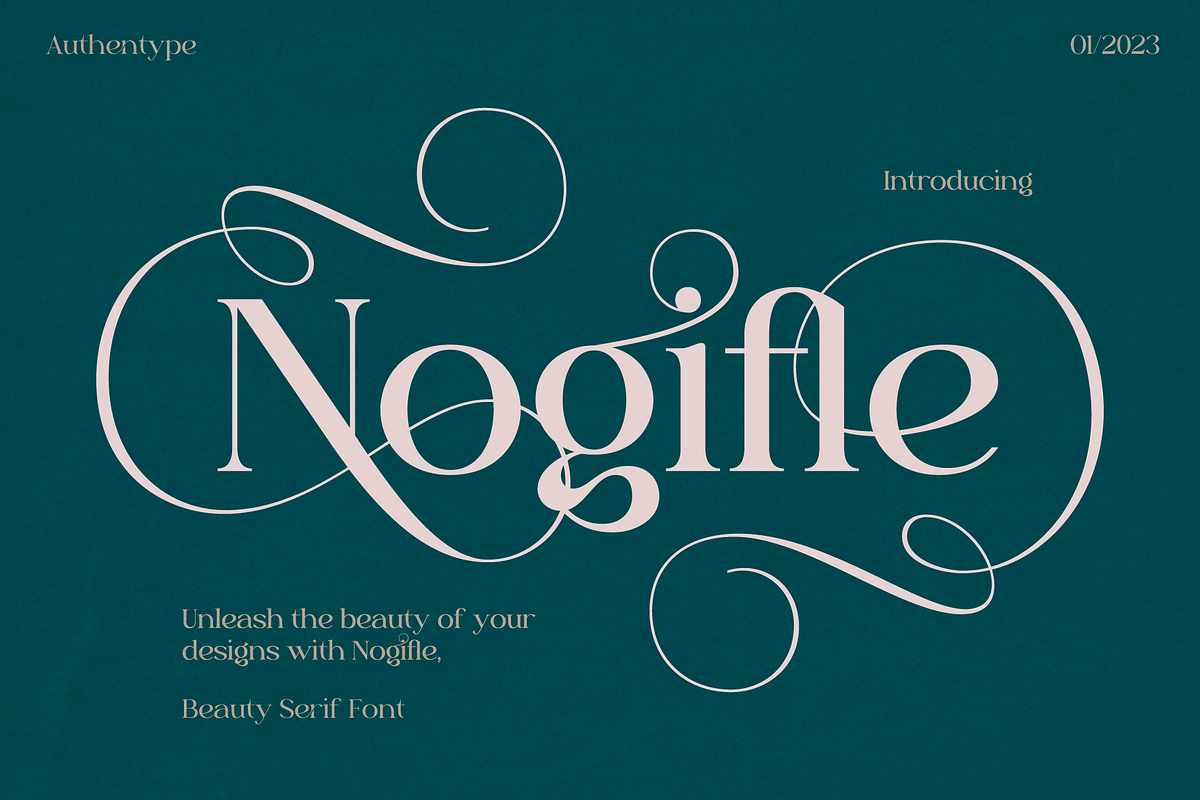
Nogifle Beauty Serif Font Free Download
Nogifle Beauty Serif Font Free Download is an elegant and refined typeface designed to add a luxurious touch to your creative work. With its delicate serifs, smooth curves, and graceful letterforms, this font is perfect for high-end branding, fashion editorials, wedding invitations, packaging, and social media content.
Nogifle beautifully balances classic serif tradition with a modern twist, making it both timeless and stylish. Its sophisticated look makes it ideal for logos and headlines that require a touch of class without sacrificing readability.